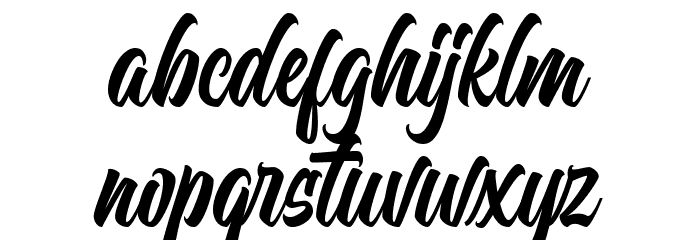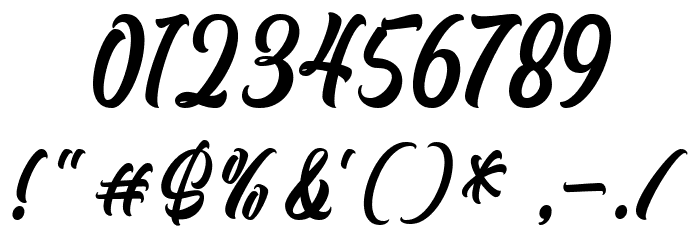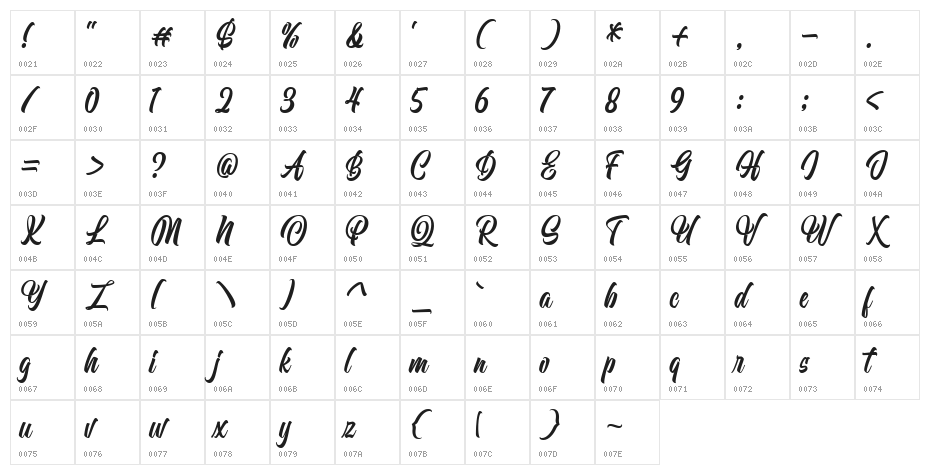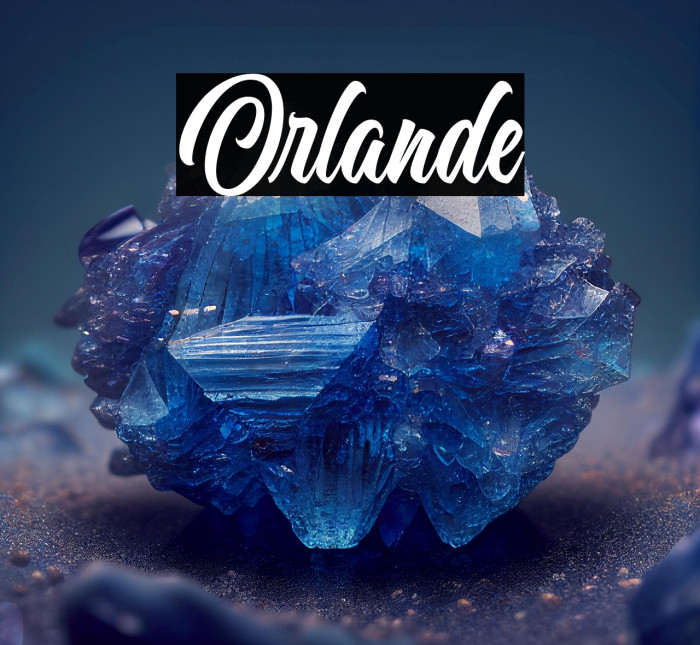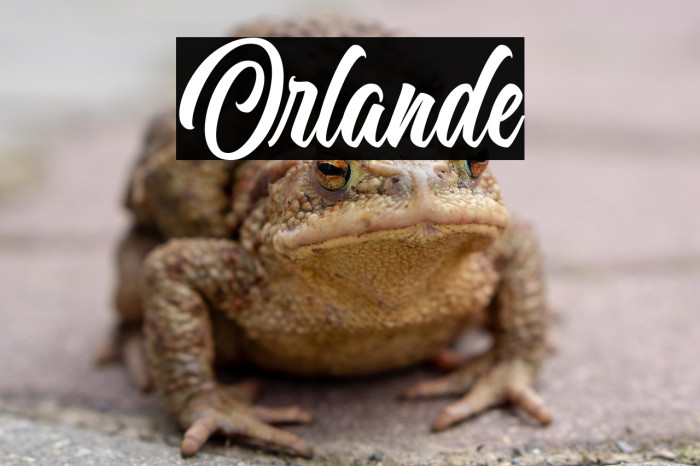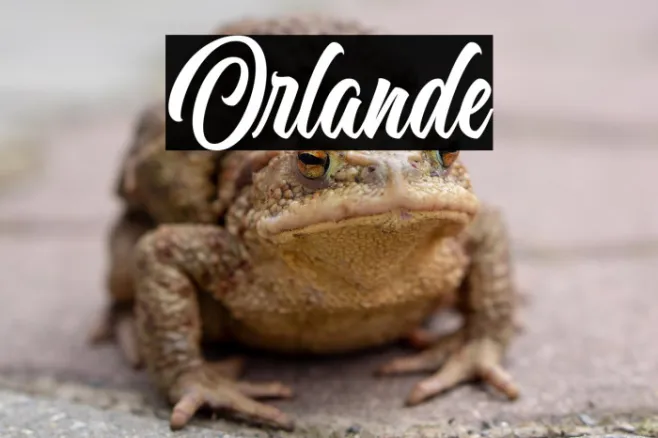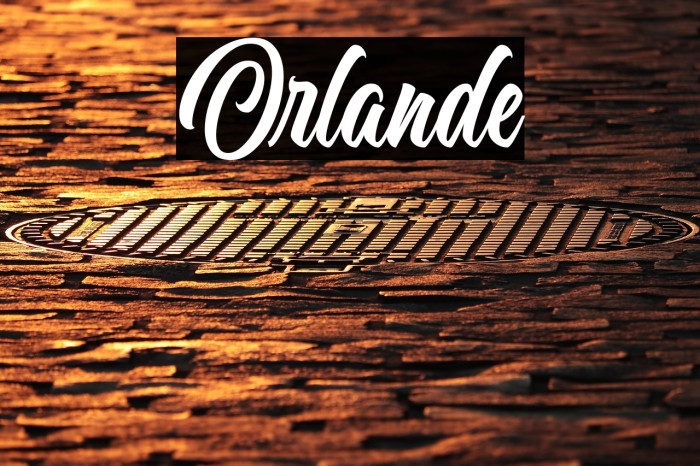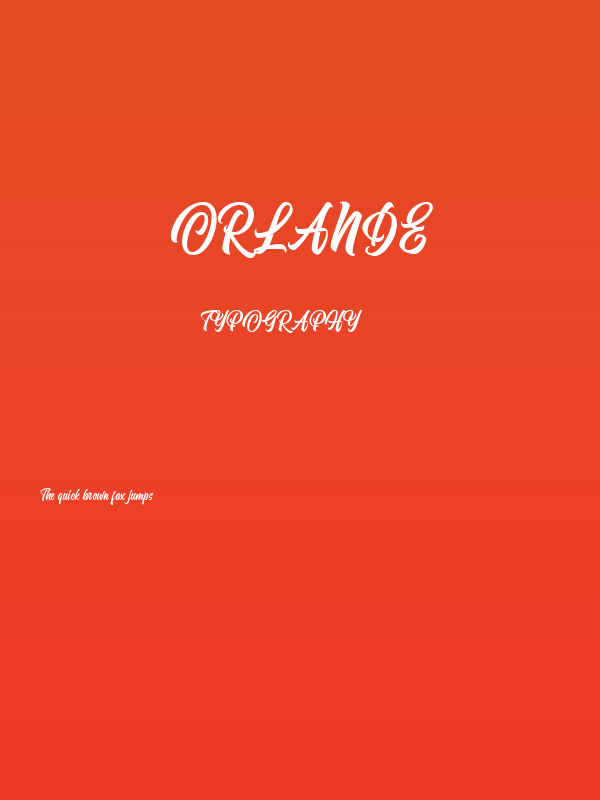
Orlande Font
This font features a bold, flowing script style that exudes elegance and sophistication. The letters are interconnected, creating a seamless and fluid appearance. The uppercase letters are particularly ornate, with exaggerated loops and swirls that add a decorative touch. The lowercase letters maintain a consistent style, with smooth curves and a slightly slanted orientation. The numerals and special characters are designed to match the overall aesthetic, ensuring a cohesive look across all text. This font is ideal for projects that require a touch of class and refinement, such as invitations, branding, and signage.
A bold, elegant script font with flowing, interconnected letters.
- Proposed Projects: Ideal for wedding invitations, luxury branding, elegant signage, and decorative headlines.
- Overall Style: Elegant, Decorative
- Use Case: Headlines, Logos, Invitations